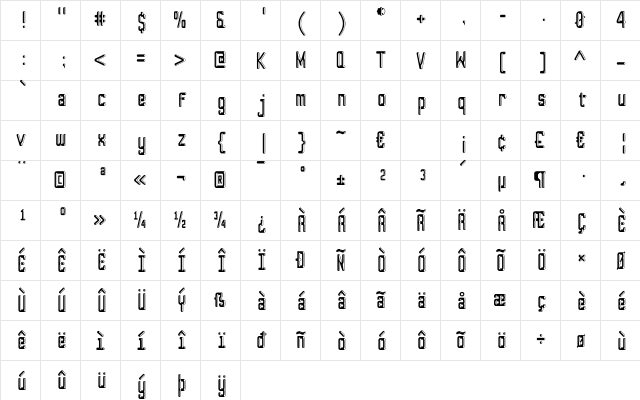
SquareShooter Mono 'Shaded' Regular
Design Context for SquareShooter Mono 'Shaded' Typeface
SquareShooter Mono 'Shaded' uses fixed-width spacing throughout, giving it the structured, systematic character associated with coding environments and technical documentation.
Pro Tip: Pair SquareShooter Mono 'Shaded' with a proportional sans for UI contexts where code-style labels and regular body copy need to coexist.